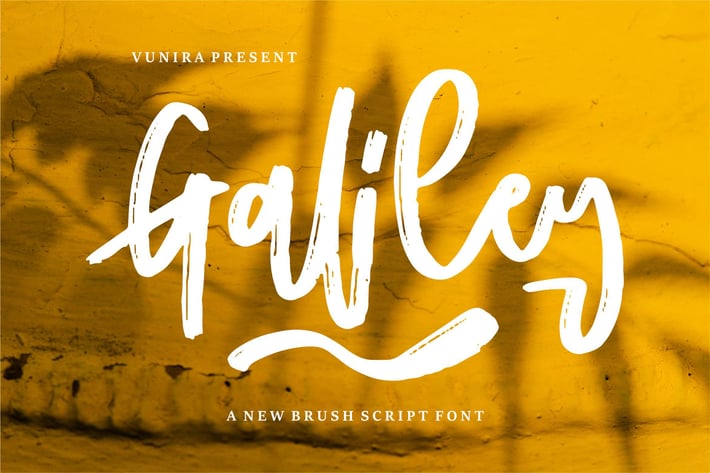
Galiley | A New Brush Script Font
Galiley | A New Brush Script Font with a calligraphy style, So beautiful on invitation like greeting cards, branding materials, business cards, quotes, posters, and more!